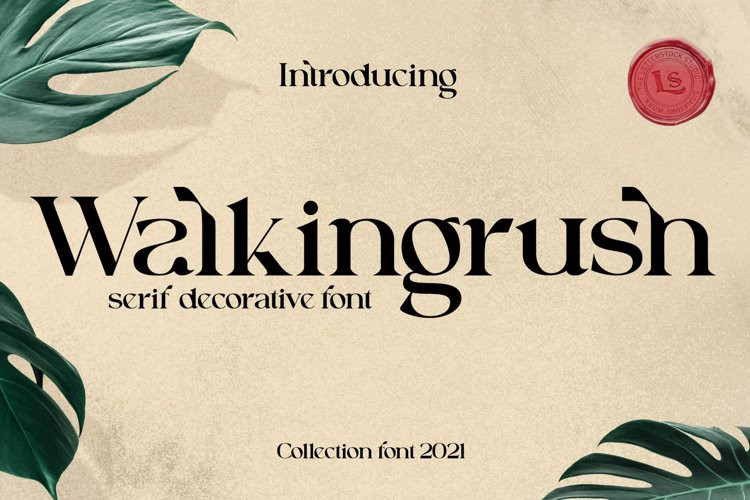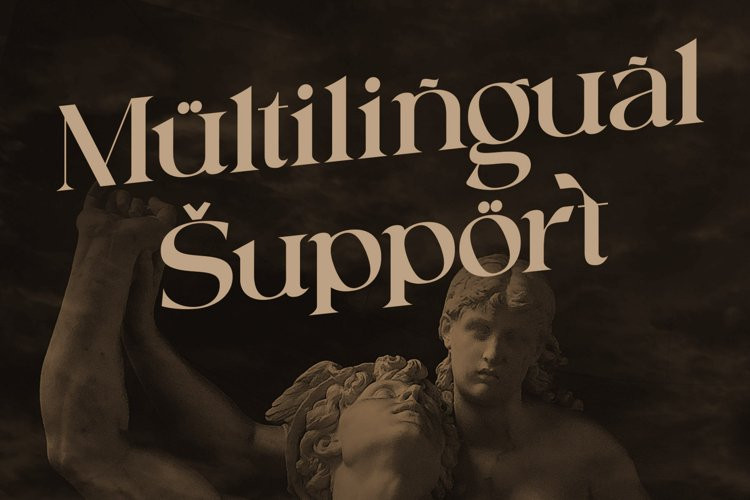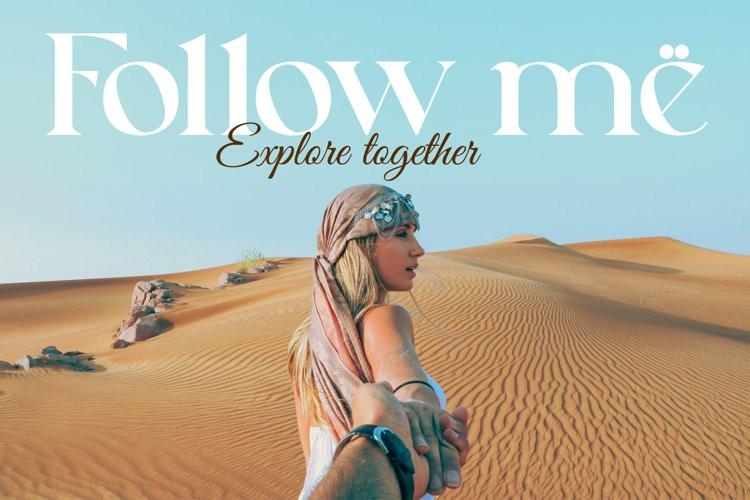
Walkingrush Font
This pair was inspired by the vintage modern poster design that i saw on some coffee shop, It was crafted by hand specially to add natural handmade feeling in its brand identity than i make it clean with pentool.